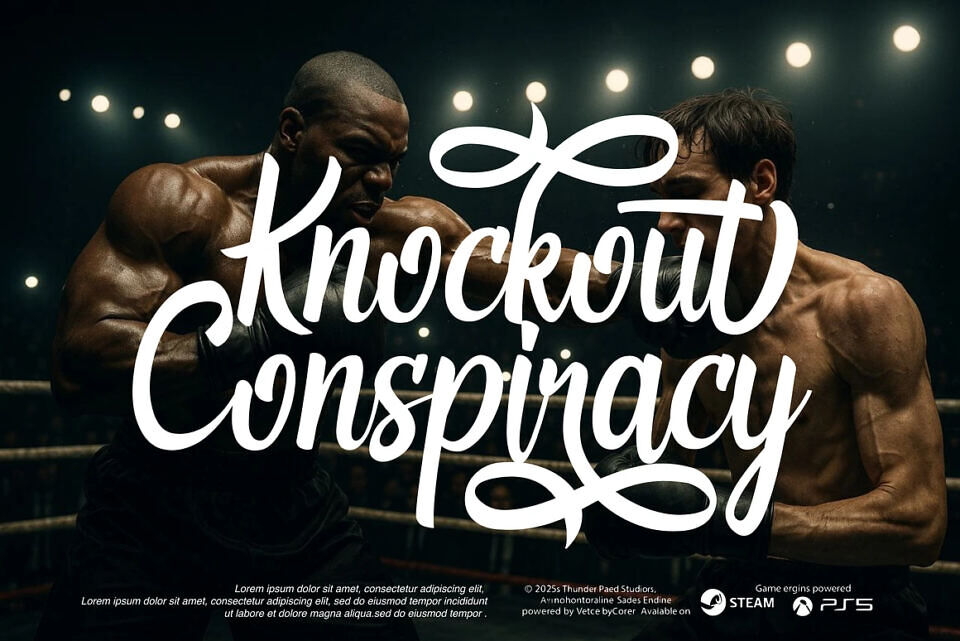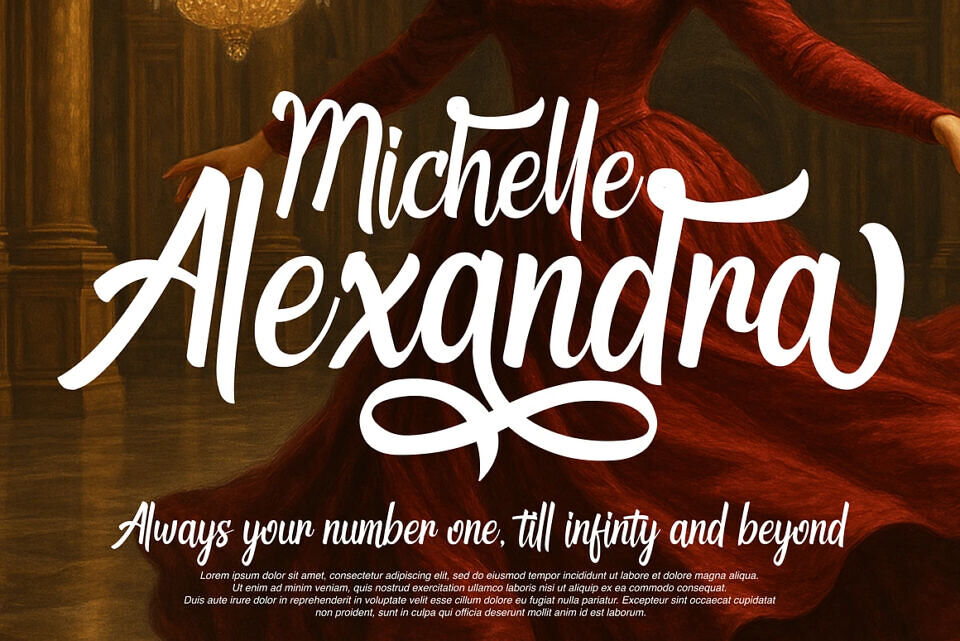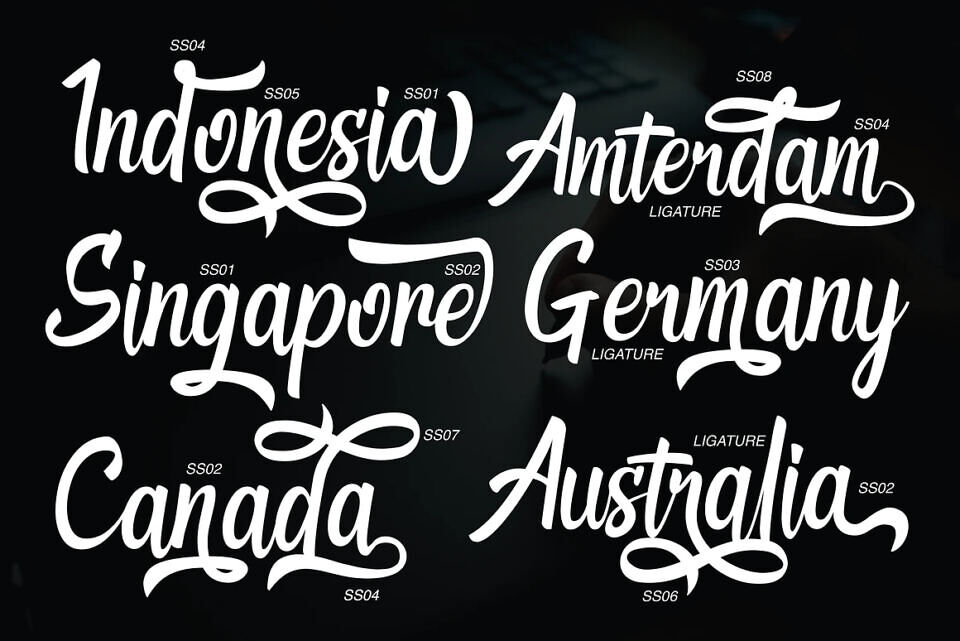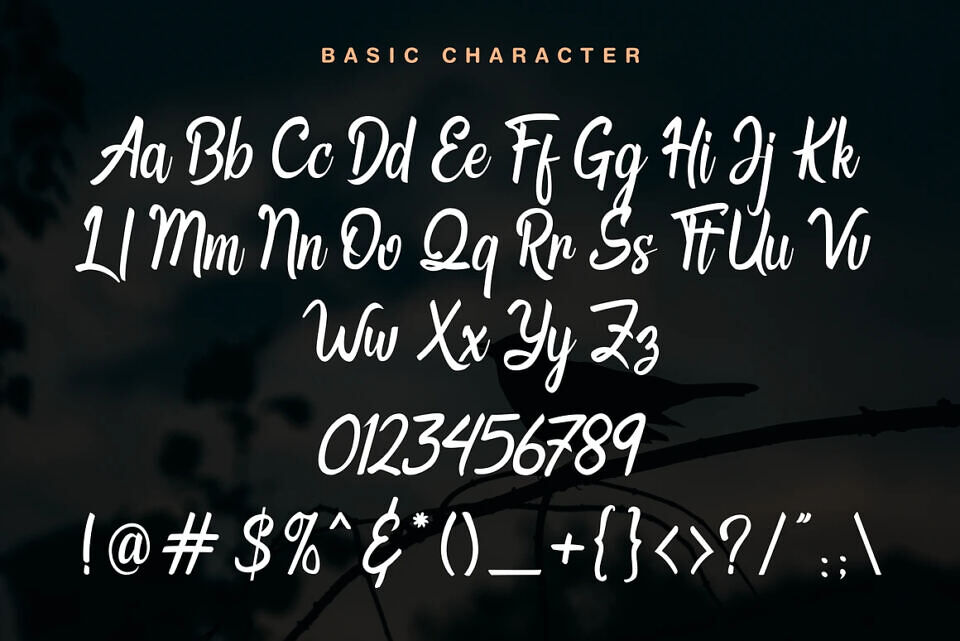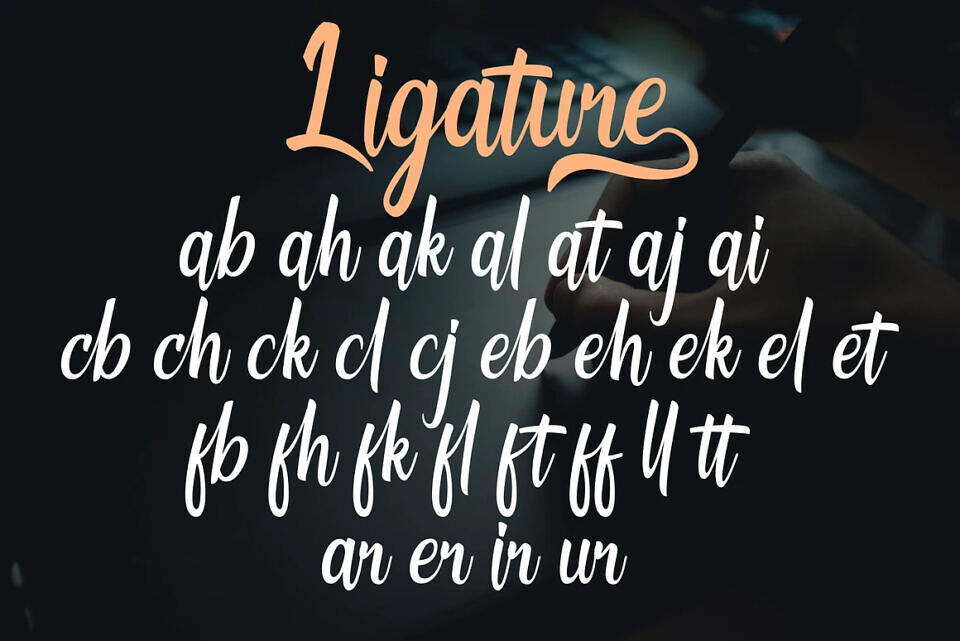
Engleheart Font
Engleheart is an elegant modern script style with a typographic touch, enhanced by subtle swash features that add elegance and beauty to its design.
The name “Engleheart” is inspired by the movie The Longest Yard (2004). It references a character played by Kevin Nash, a famous wrestler from World Wrestling Entertainment (WWE). Because of this, part of the font’s preview features a sports-themed design.